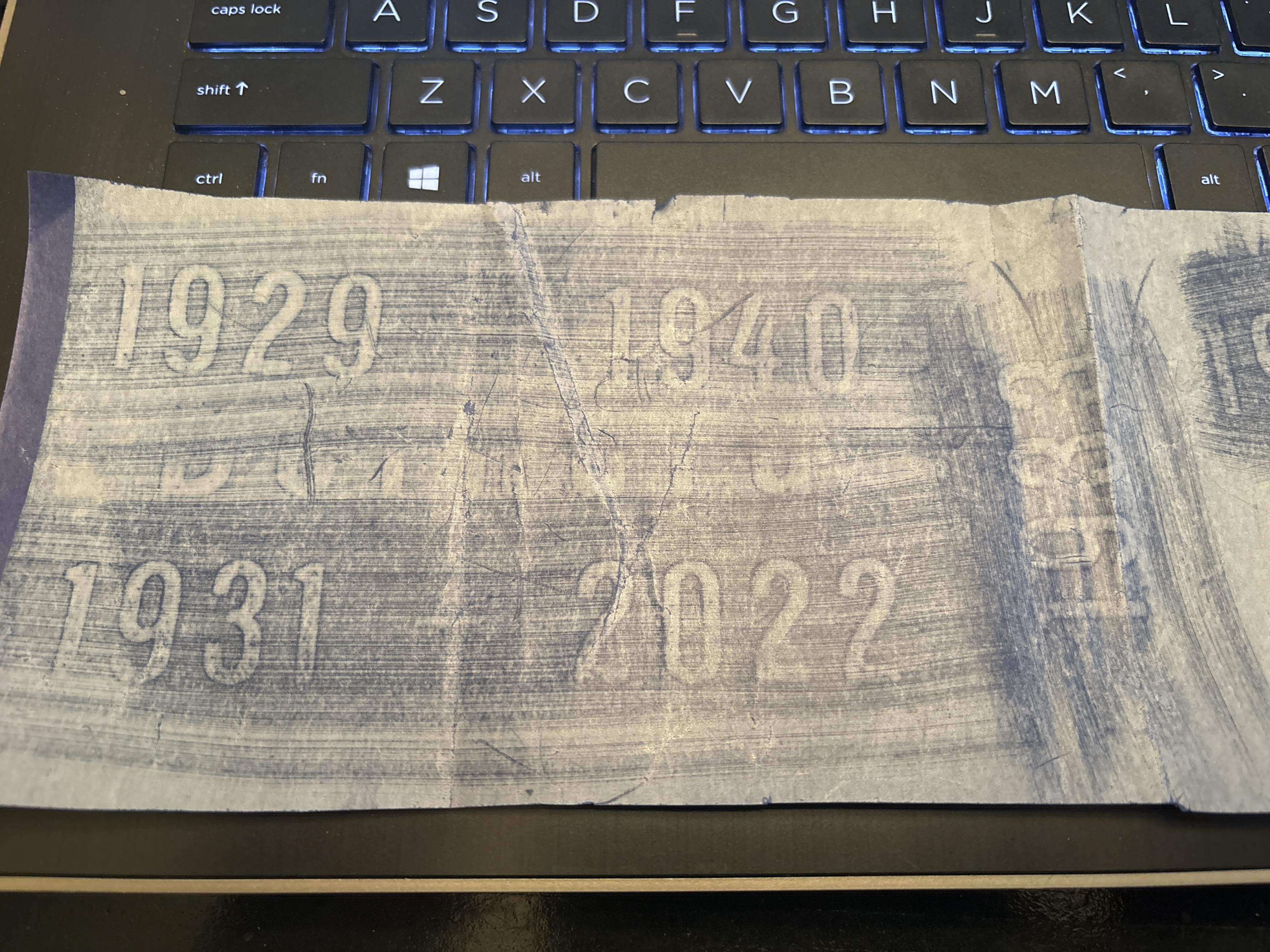
1. I think this is helvetica medium in Gerber but am wondering if you think that is correct. The one on my stencil seems a little wider. Thanks for any information!
Hi Jill, yes I am almost certain this is Helvetica Med Comp Acct AK Rev B in Gerber, which is based on “Helvetica Inserat” but much thinner.